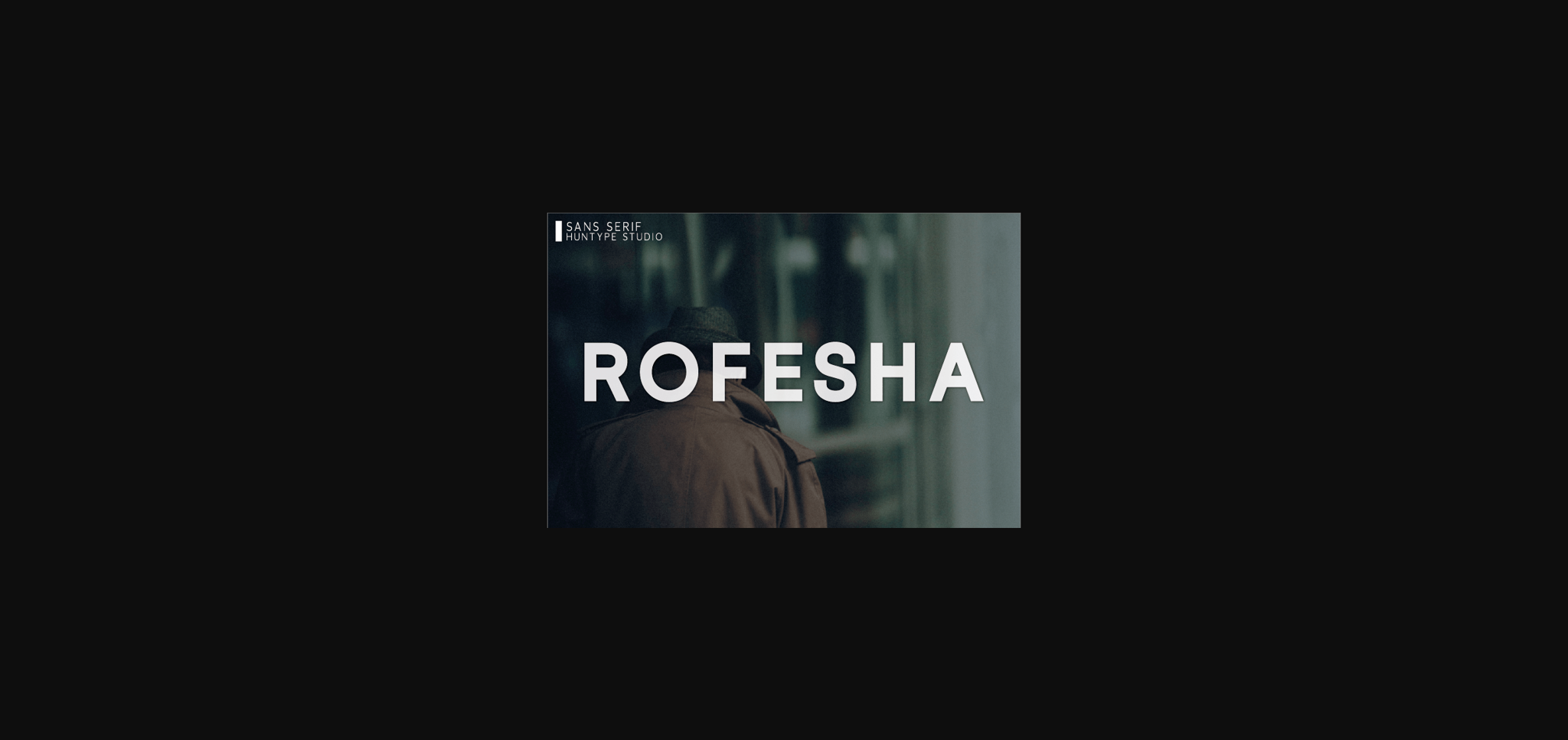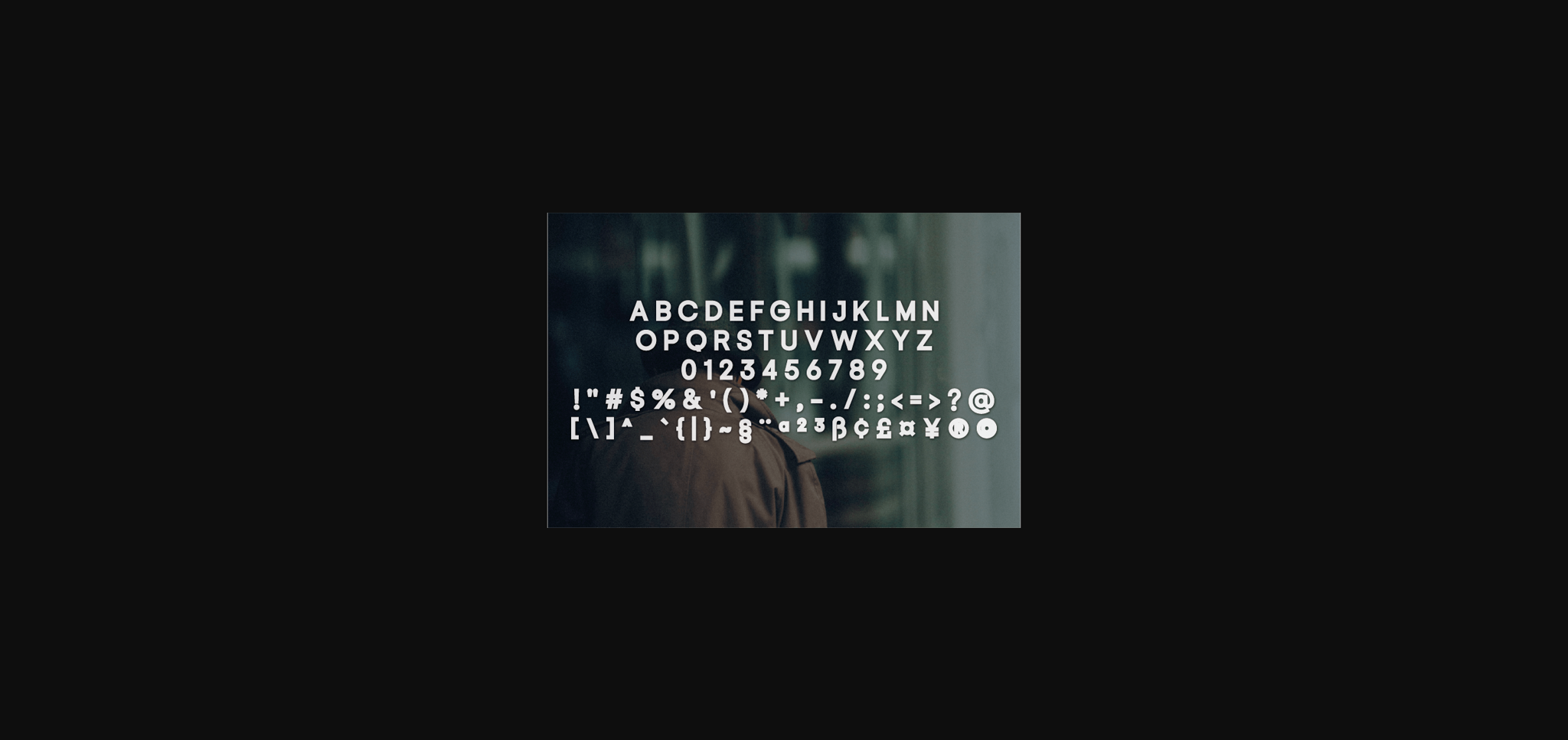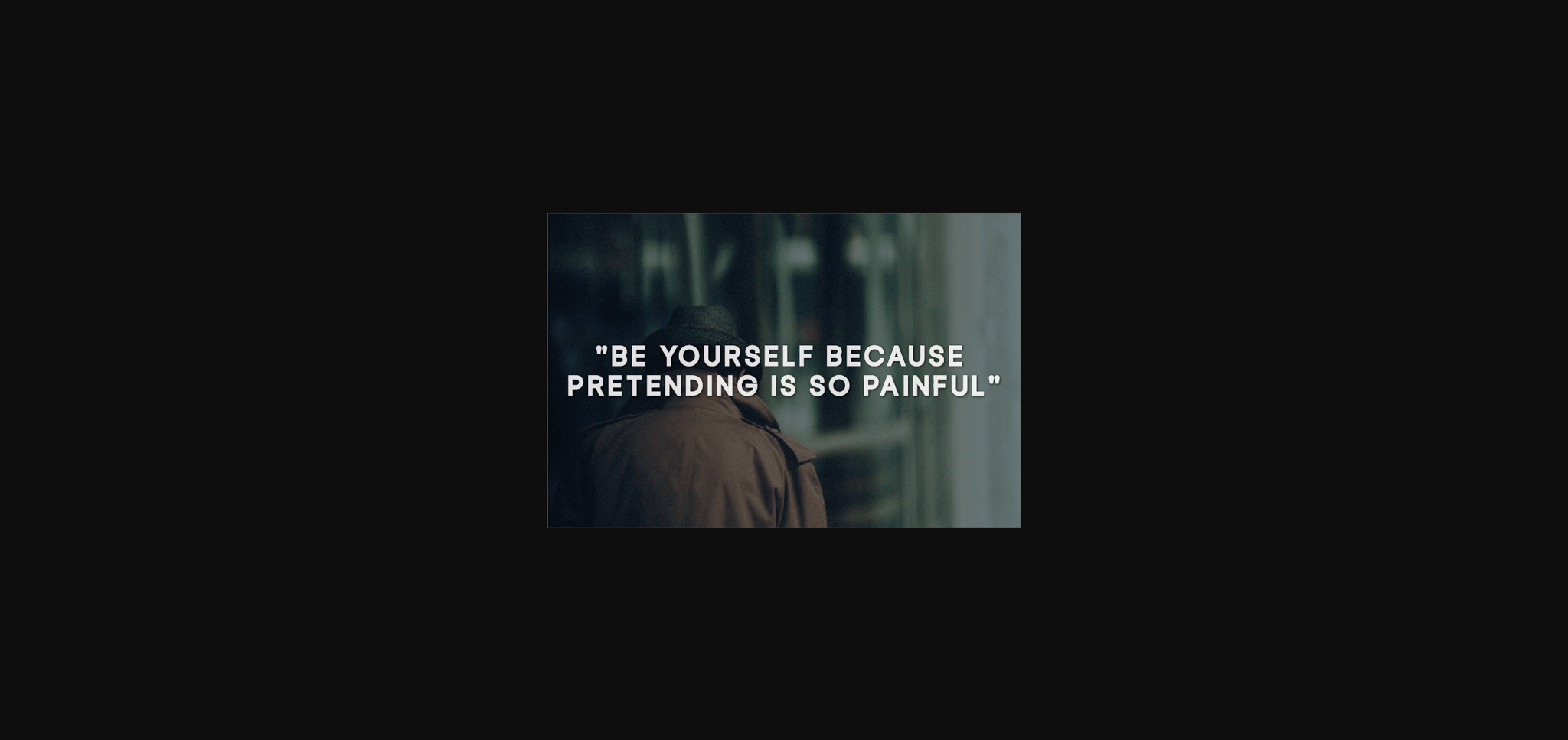
HomeSans Serif FontsRofesha Font Sans Serif Fonts Rofesha Font FacebookXPinterestWhatsApp 1 of 5 ... Rofesha Font Poster 2... Rofesha Font Poster 3... Rofesha Font Poster 4... Rofesha Font Poster 5... About Rofesha Font Rofesha is a bold and thick lettered sans serif font. With simple and clean lines, this font works beautifully for logos, branding, and web headings. DOWNLOAD NOW People also explored Dueling Peppercorns Bilground Font Wedding Minimalist Font Barbie Chubby Font Created Font Zolinga Font Hello Minimalist Font Bogey Font Westurn Font 359 0 TagsRofeshaRofesha Font Previous articleOver the Moon FontNext articleMocalle Font LEAVE A REPLY Cancel reply Comment: Please enter your comment! Name:* Please enter your name here Email:* You have entered an incorrect email address! Please enter your email address here Website: Save my name, email, and website in this browser for the next time I comment. Personal Use Free Rollayka Personal Use Free Read more about this font Little Pigeon Personal Use Free Read more about this font Cataleya Personal Use Free Read more about this font Joystix Monospace Personal Use Free Read more about this font BLOG Transform Your Website: Elevate Your Typography with 7 Best Web Font Generators Are you ready to transform your website's typography from ordinary to extraordinary? Great! Today, we're diving into the world of web font generators, which... Using Fonts in Digital Marketing: Tips to Strengthen Your Brand Identity How to Cut Any Font on Cricut: Convert a Font to SVG (Free) The 10 Best Handwriting Fonts to Add Personality to Your Designs